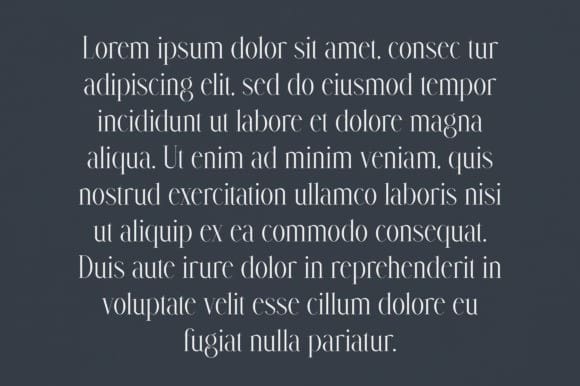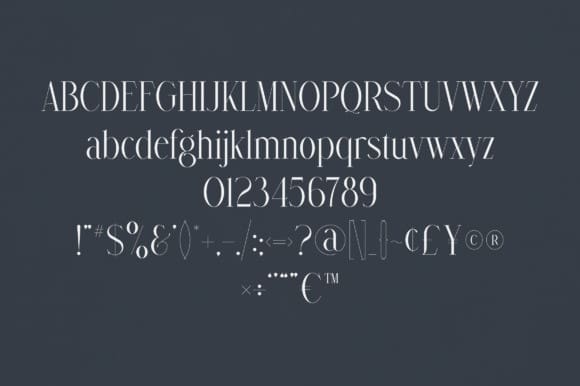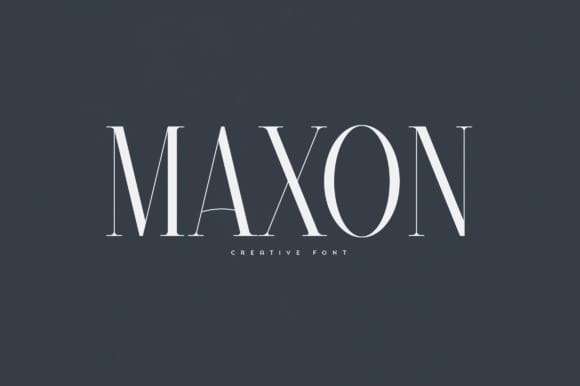
Maxon Font
Maxon Font is an elegant and versatile serif font that will make your typography truly unique! It will enchant every logo, branding, headline, or plain text!